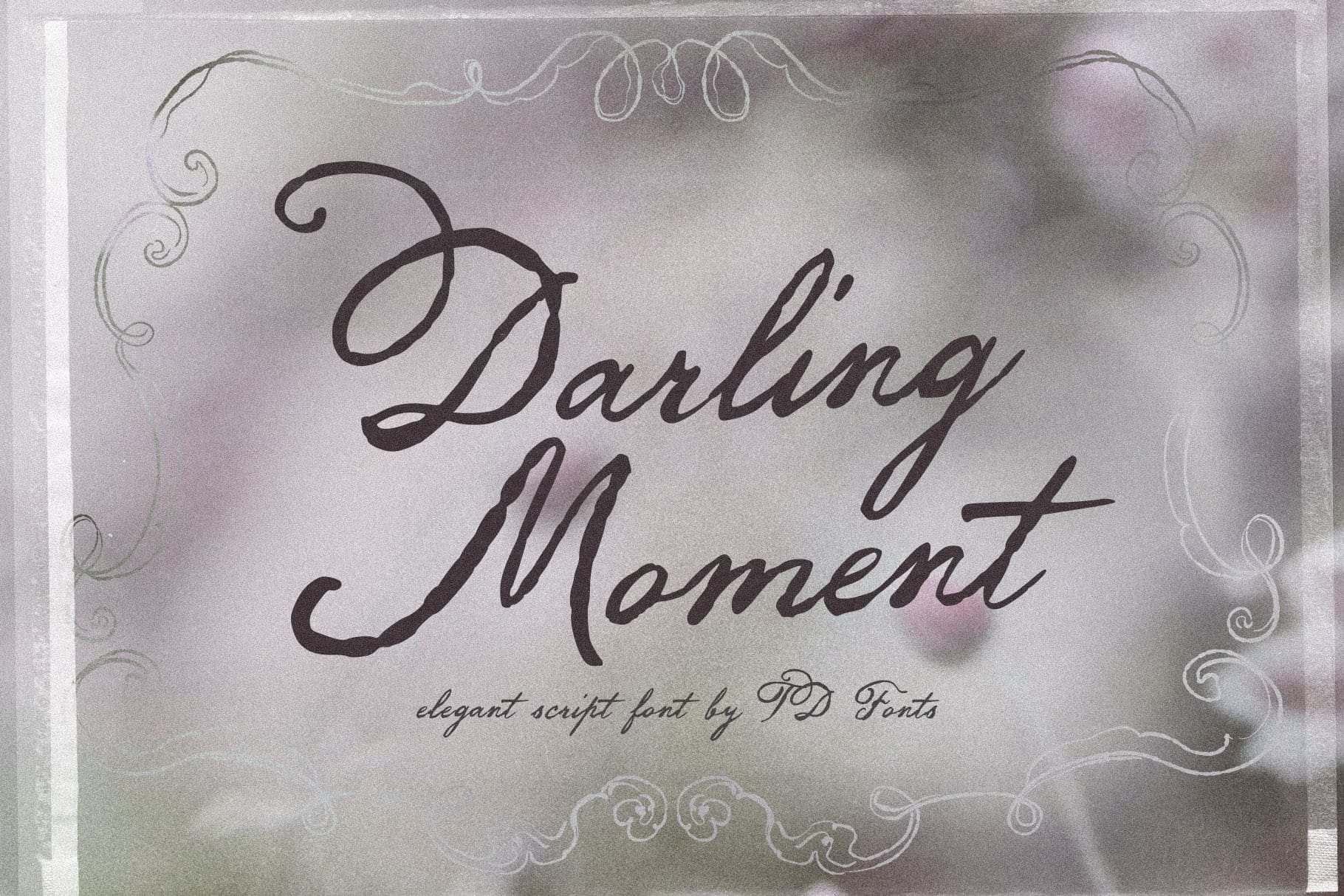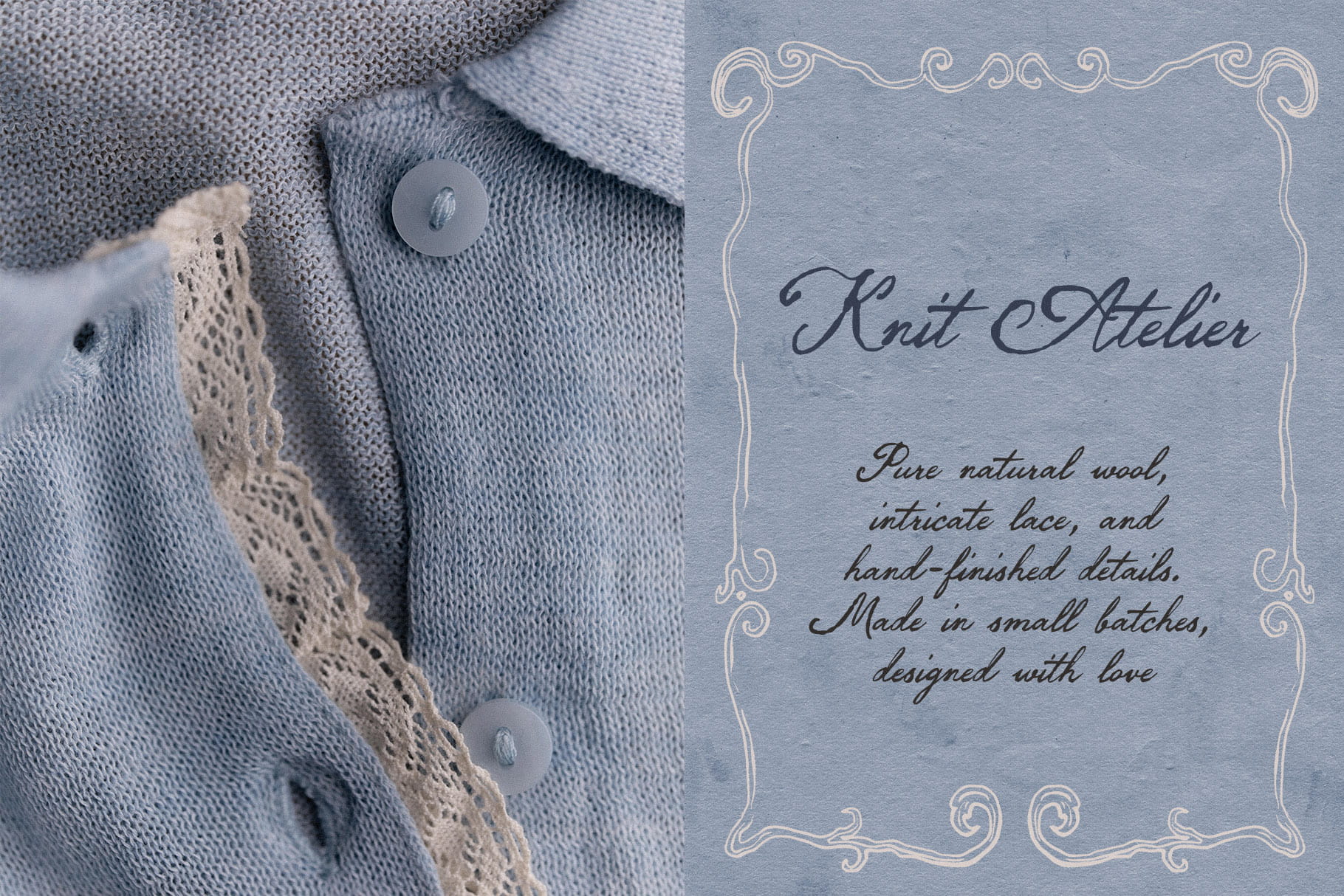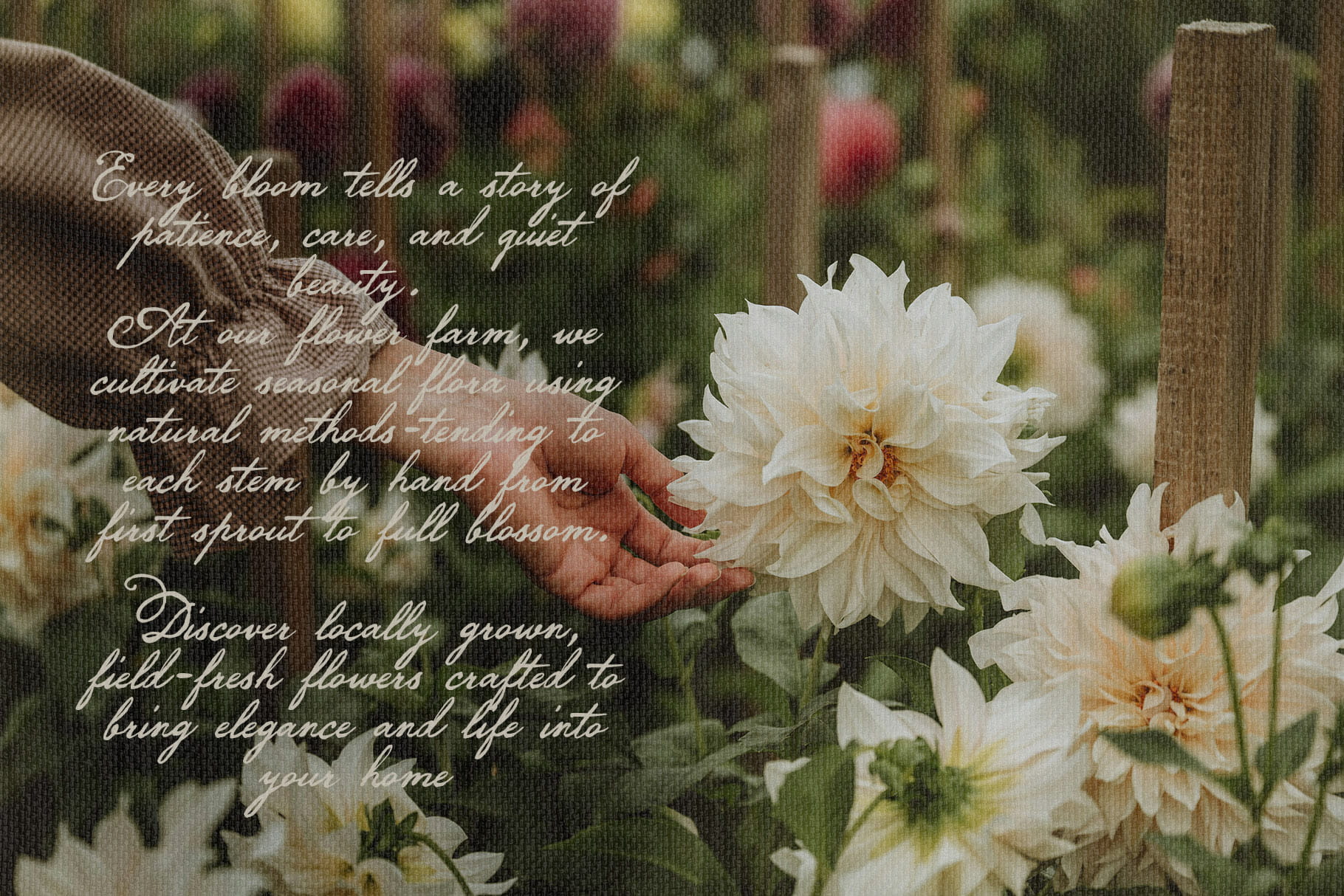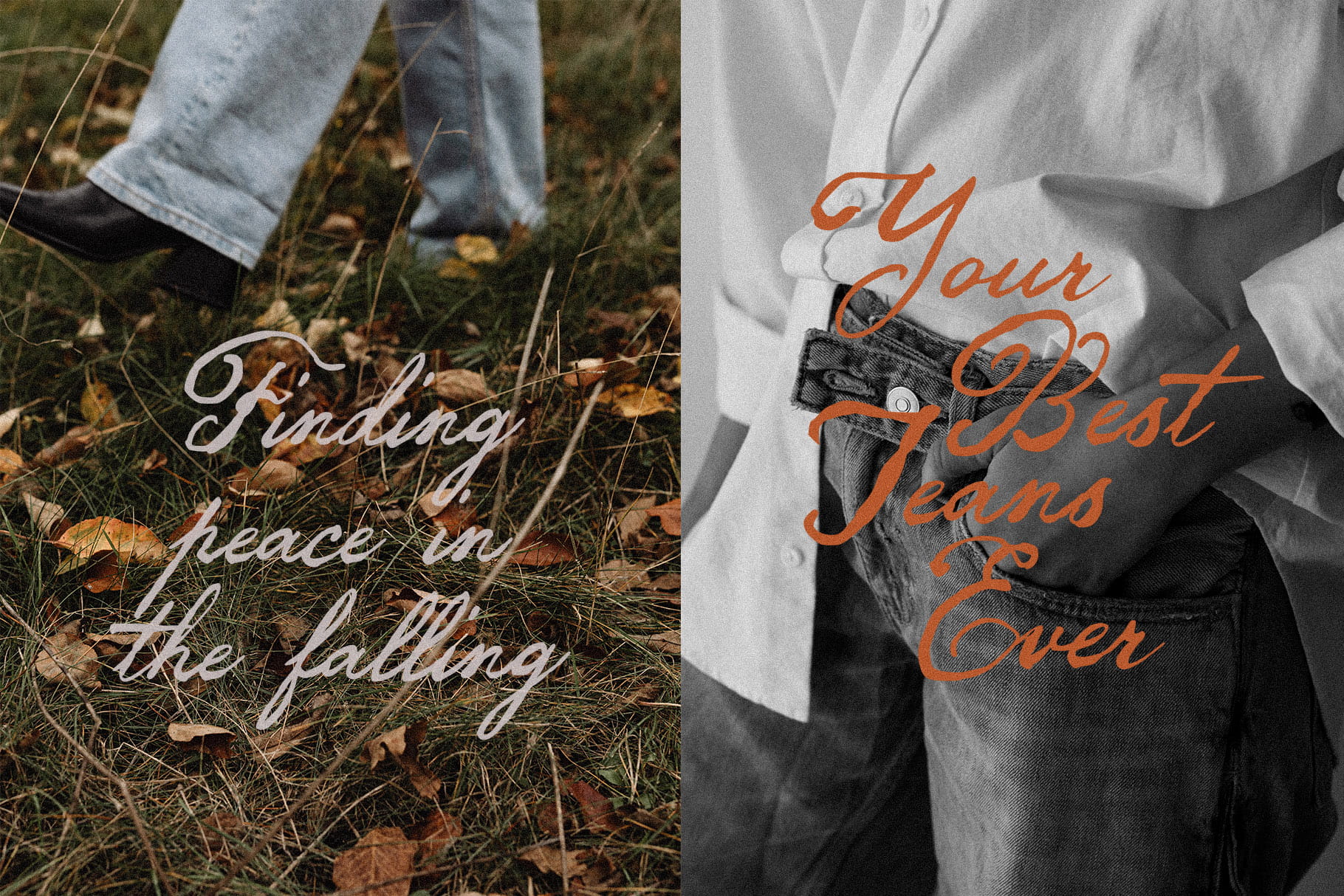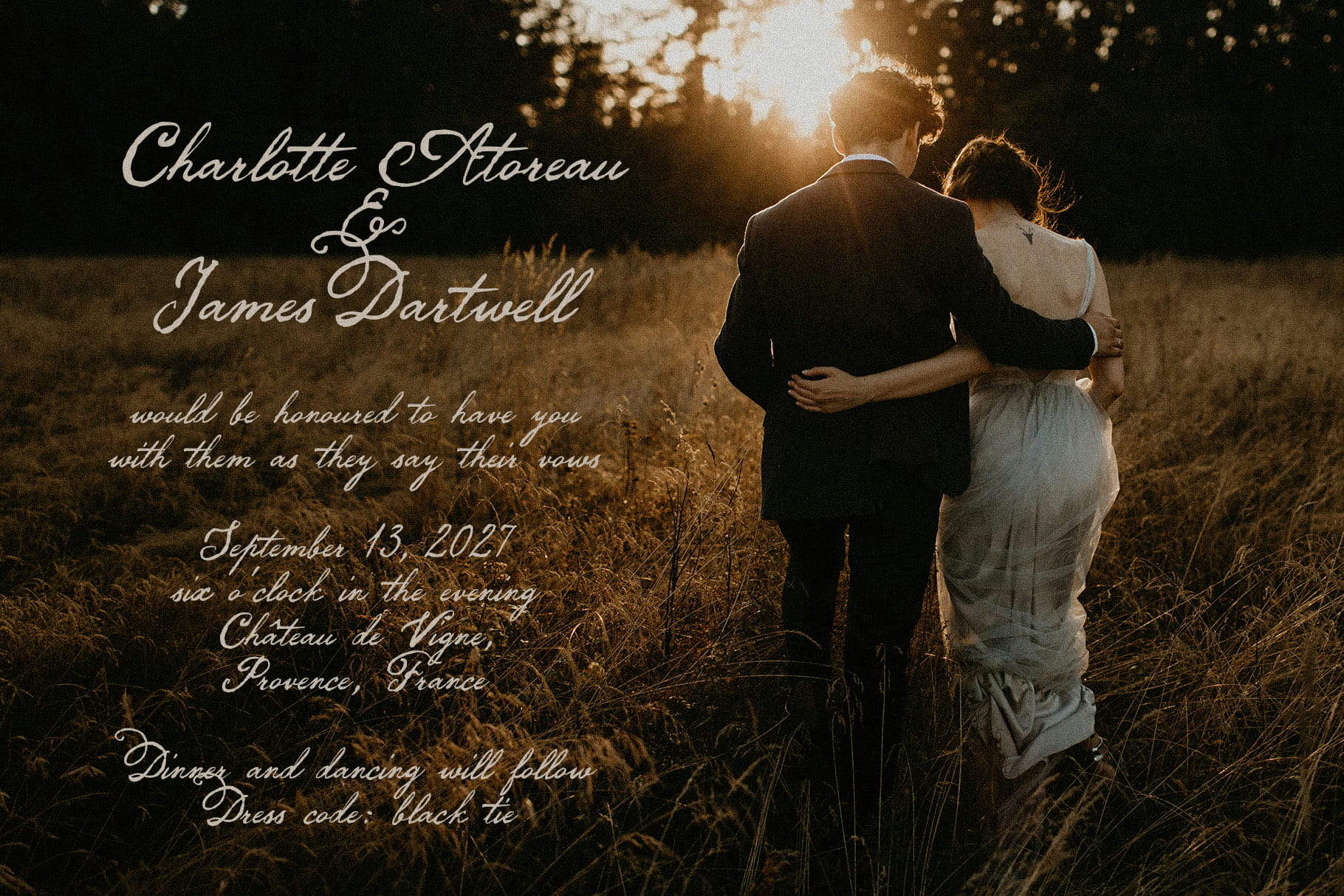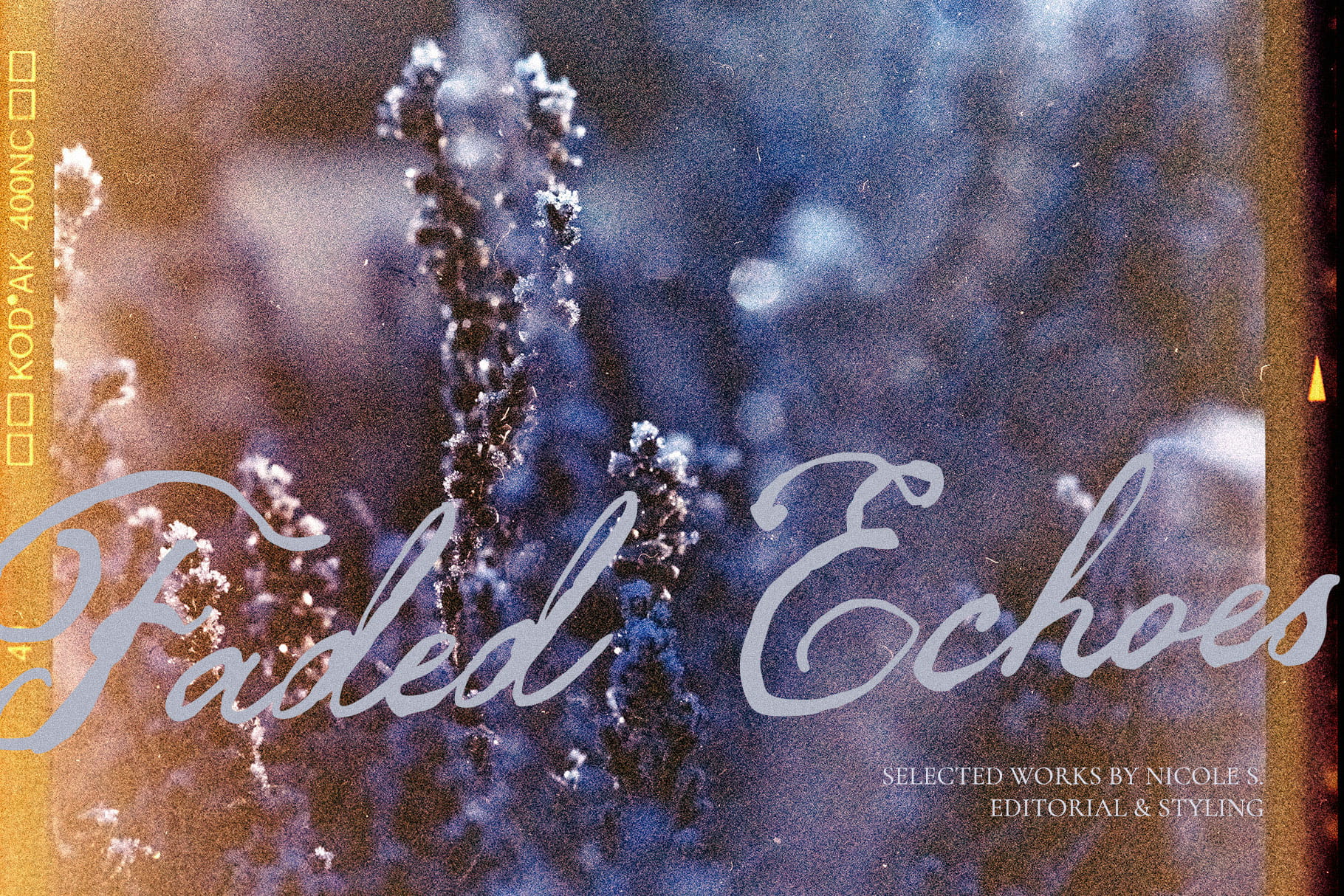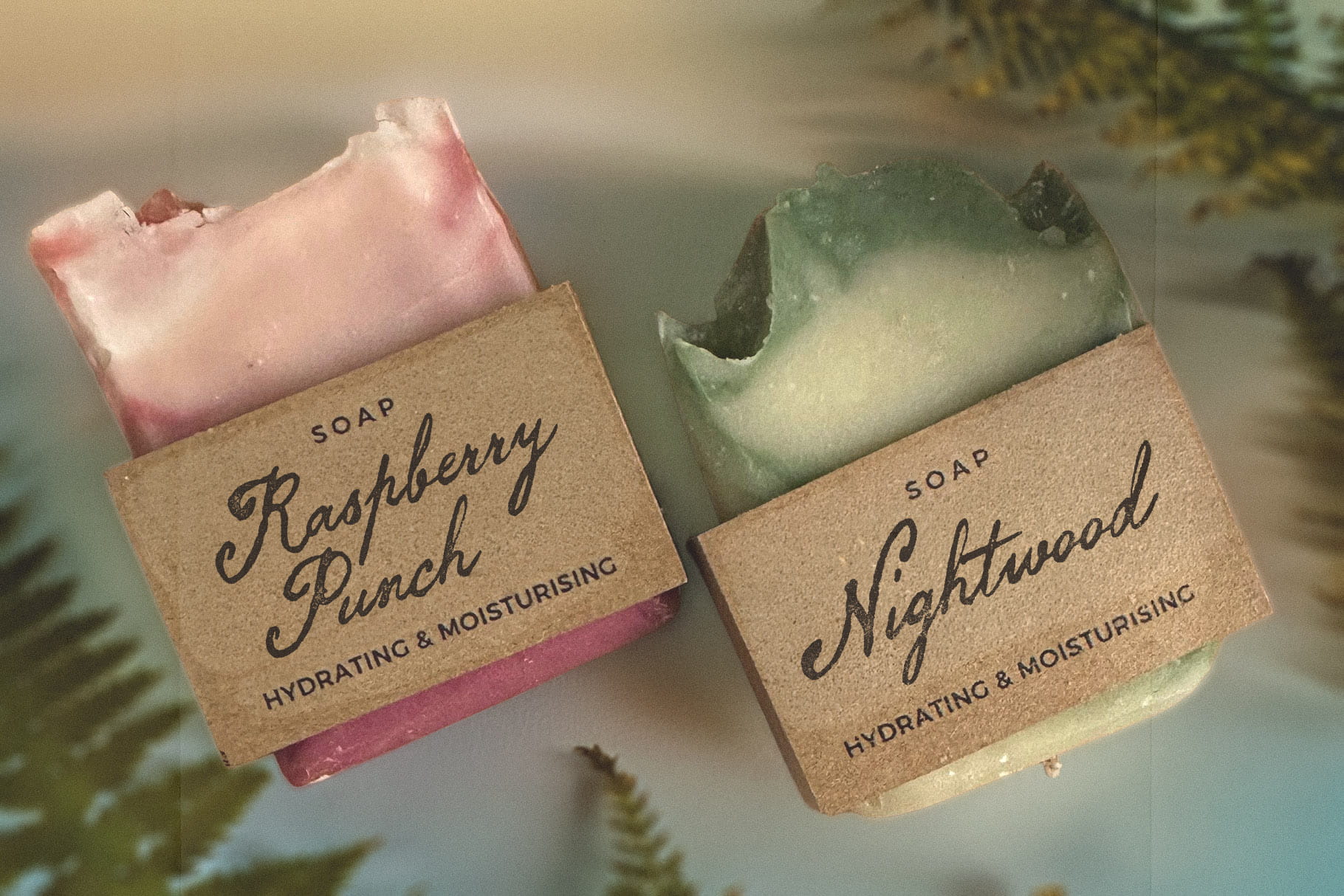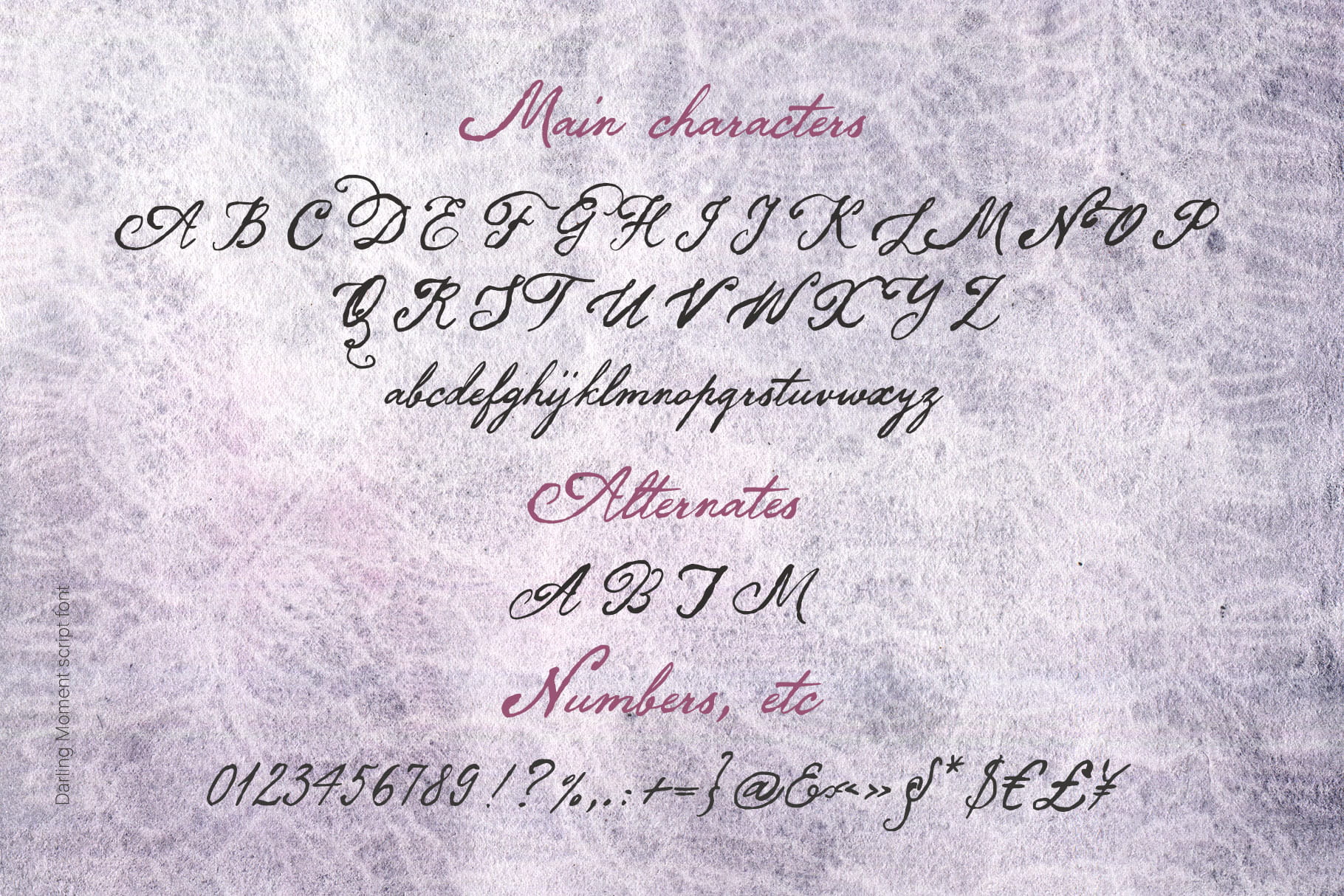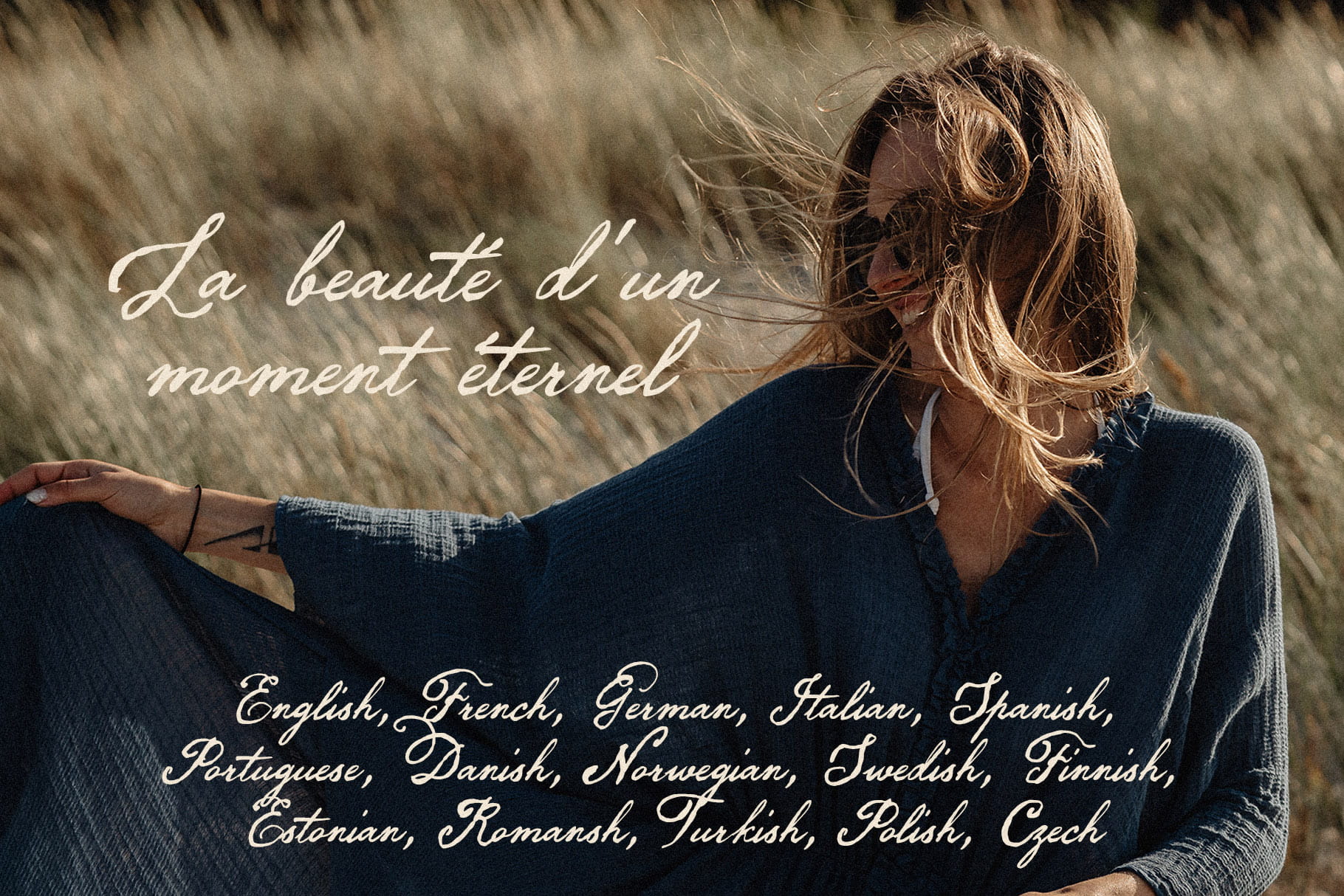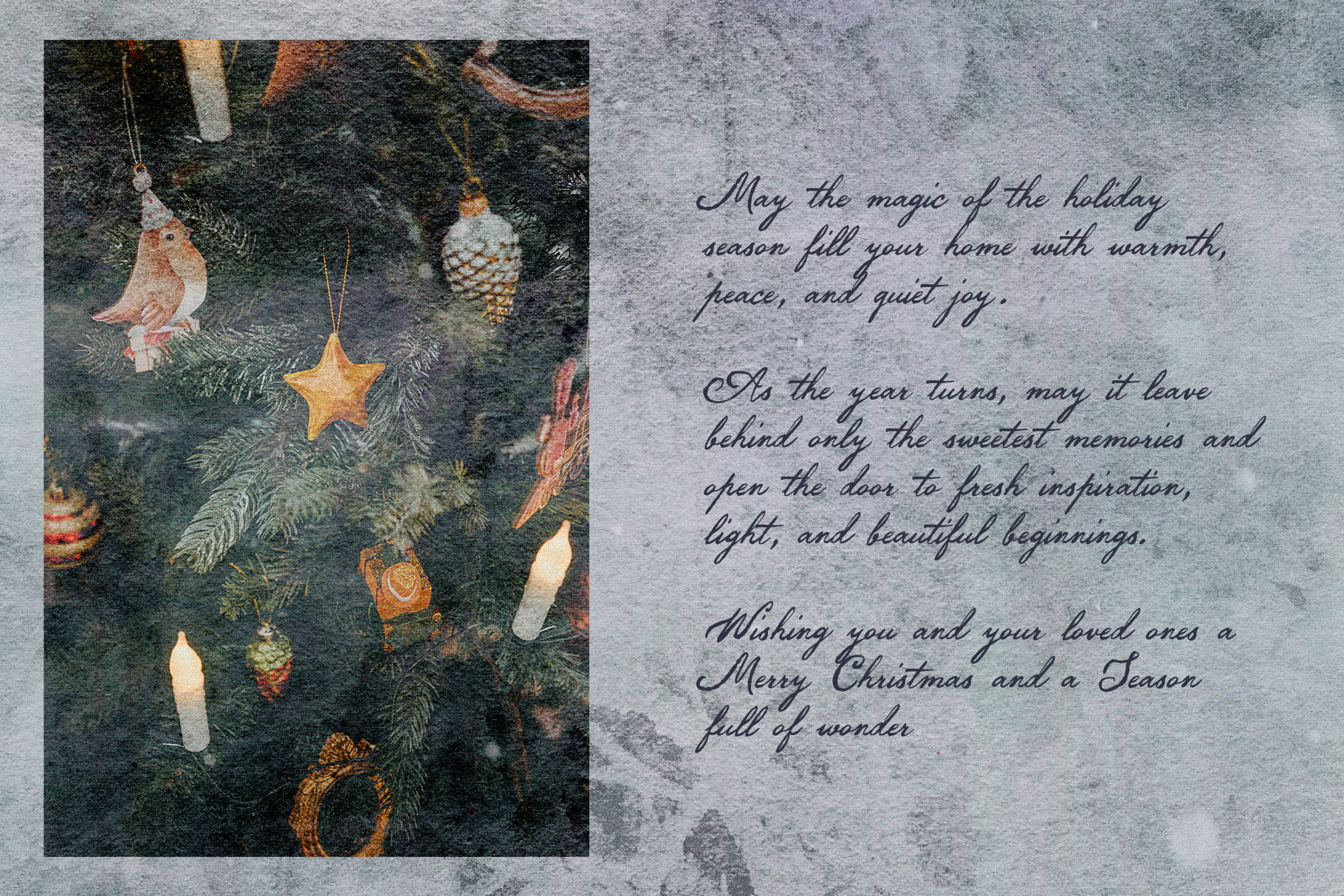
Darling Moment — vintage elegant script font for editorial, wedding & design
Darling Moment is a vintage elegant script font with fluid letterforms, delicate swashes, and a soft ink-bleed texture. Increased stroke weight keeps it legible even at small sizes. Full multilingual support for 15 languages.
Darling Moment is an elegant handwritten script font built to bring warmth, romance, and quiet luxury to your designs. Its fluid letterforms, delicate swashes, and organic movement capture the feeling of a handwritten letter — soft, personal, and unhurried.
Inspired by classical vintage calligraphy, it’s been reimagined for modern use. A rich ink-bleed texture runs through every letter, giving the typeface a hand-crafted, tactile quality that a purely digital script can’t fake.
Letterform details
Unlike thin traditional calligraphy scripts, Darling Moment is drawn with increased stroke weight. That extra thickness keeps it easy to read even at small sizes, so it holds up on product labels, tags, and fine print where delicate scripts usually blur or thin out. Capitals carry expressive, sweeping flourishes, and a set of stylistic alternates and swashes lets you vary repeated letters for a more authentic handwritten look.
Where this vintage script font works best
This font is built for moments that call for a personal, heartfelt touch rather than polished digital perfection:
Wedding stationery — invitations, vow books, and place cards where romantic, old-world elegance matters
Boutique branding — feminine logotypes and brand identities that want warmth over sterility
Product packaging — candle and soap labels, jar tags, and other small-format packaging where legibility at a small size is essential
Greeting cards — holiday cards, thank-you notes, and personal letters
Editorial and social — quote art, headlines, and Instagram graphics with a nostalgic, human feel
Full uppercase and lowercase letter set with visible ink texture
Stylistic alternates and swashes for varied, non-repetitive lettering
Multilingual support with complete accent and diacritic marks for 15 languages: English, French, German, Italian, Spanish, Portuguese, Danish, Norwegian, Swedish, Finnish, Estonian, Romansh, Turkish, Polish, Czech
Is Darling Moment legible at small sizes?
Yes. Unlike most thin calligraphic scripts, it’s built with increased stroke weight specifically so it stays readable on small-format uses like product tags and fine print.
Does it include swashes and alternate letters?
Yes. Capitals have sweeping flourishes, and stylistic alternates are included so repeated letters in a word don’t look identical.
What languages does it support?
Full accent and diacritic support for 15 languages: English, French, German, Italian, Spanish, Portuguese, Danish, Norwegian, Swedish, Finnish, Estonian, Romansh, Turkish, Polish, Czech.
What’s it best suited for?
Wedding stationery, boutique branding, product packaging and labels, greeting cards, and editorial or social media graphics — anywhere a design needs to feel personal and hand-crafted rather than clinically digital.